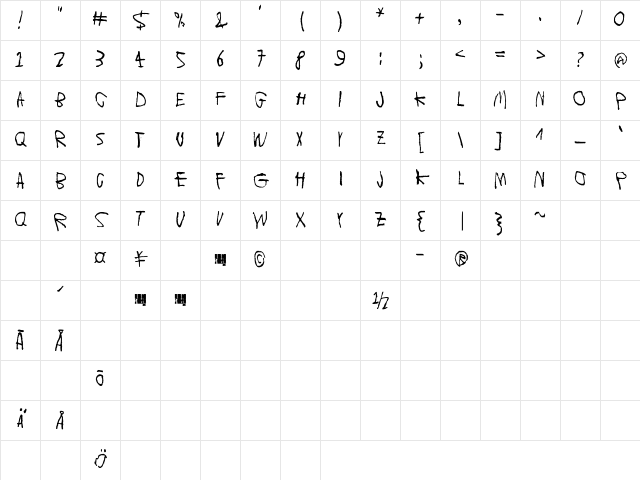
Moons of Jupiter, Europa Regular
Design Context for Moons of Jupiter, Europa
Moons of Jupiter, Europa is a composed and adaptable typeface that performs quietly and consistently across a wide range of design contexts.